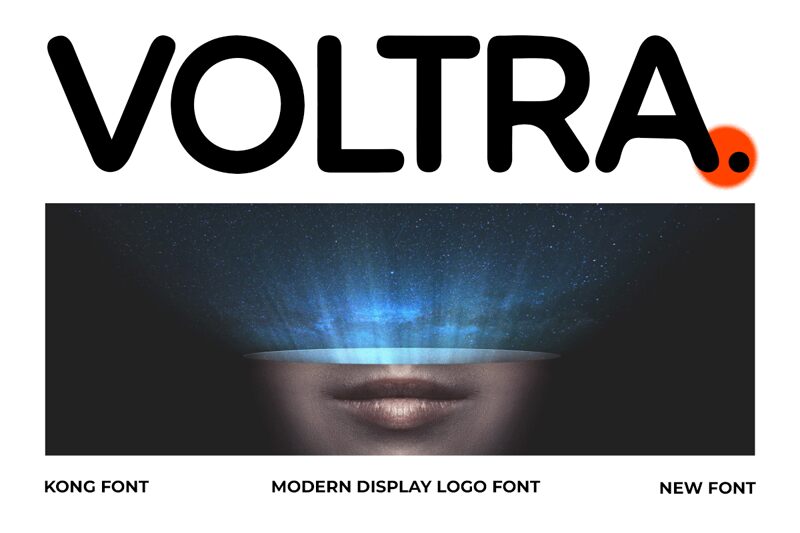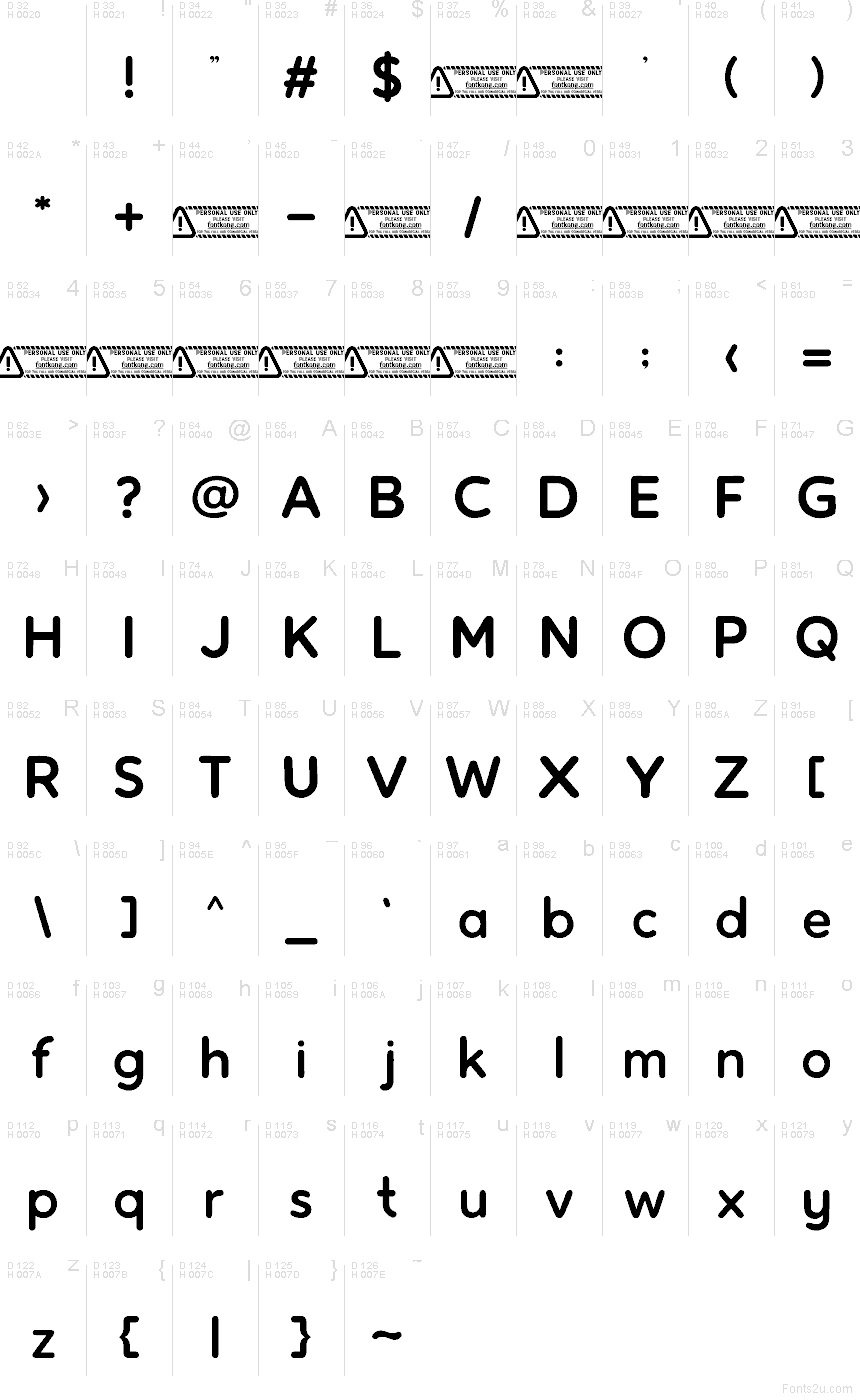
Voltra font by Kong Font is a free rounded sans serif font, and its matching typeface keeps everything friendly and clean. The strokes feel like smooth marker lines—bold, even, and softly squared at the corners—so headlines stay loud without turning sharp or aggressive. Wide spacing and simple shapes make it easy to read at a glance while still feeling playful.
Using Voltra on stickers, kids’ products, YouTube thumbnails, café menus, app splash screens, classroom posters, and casual brand logos gives your words a warm, upbeat bounce. Set it a touch larger than usual to let the curves breathe, then pair this free font with a neat geometric sans for body text to keep layouts crisp.